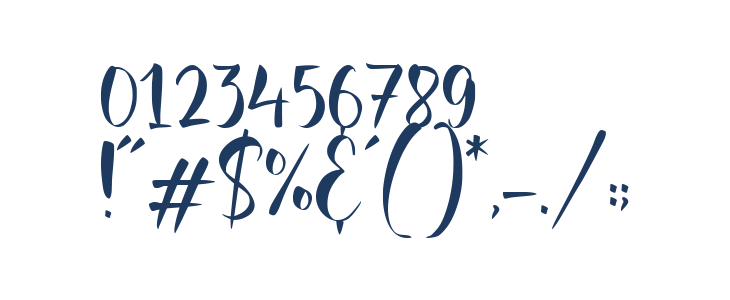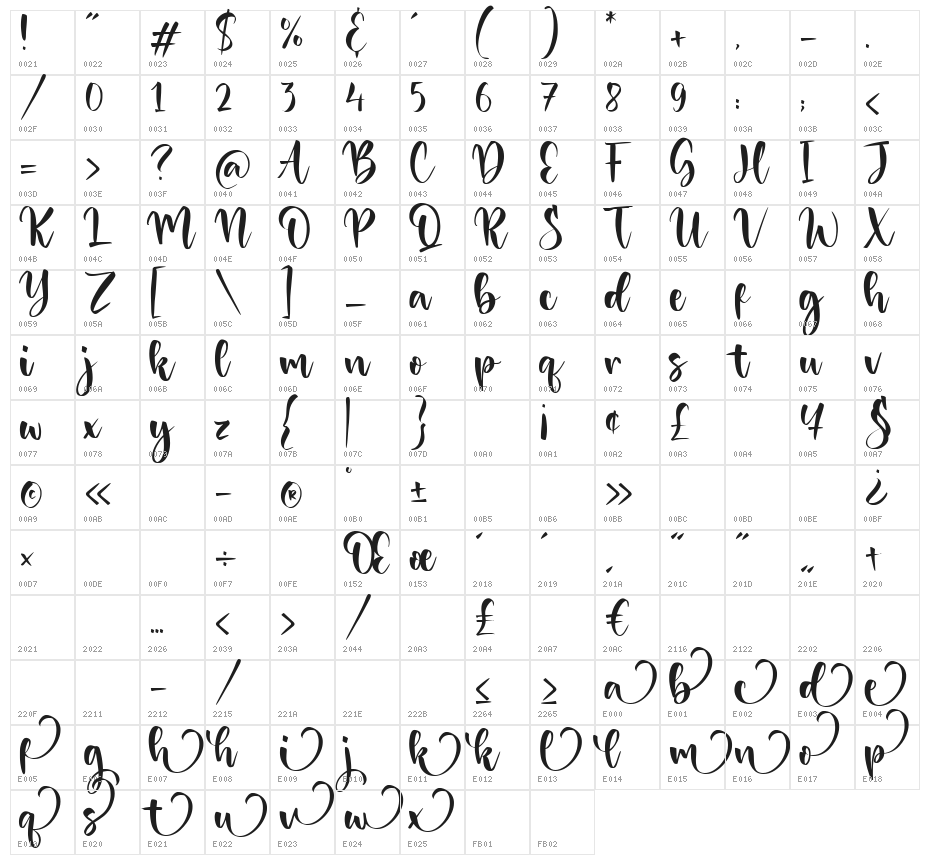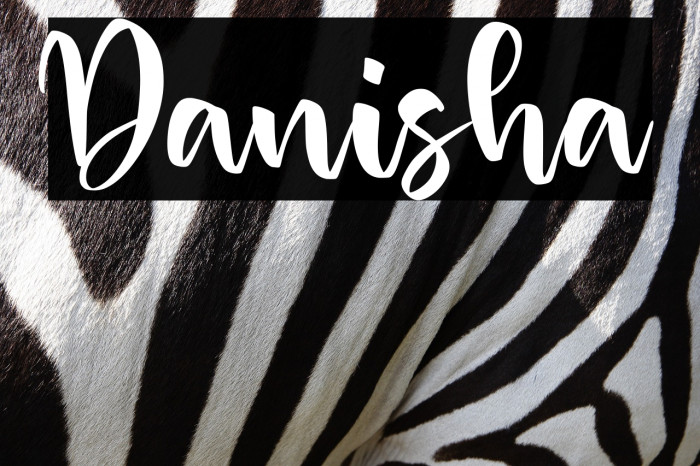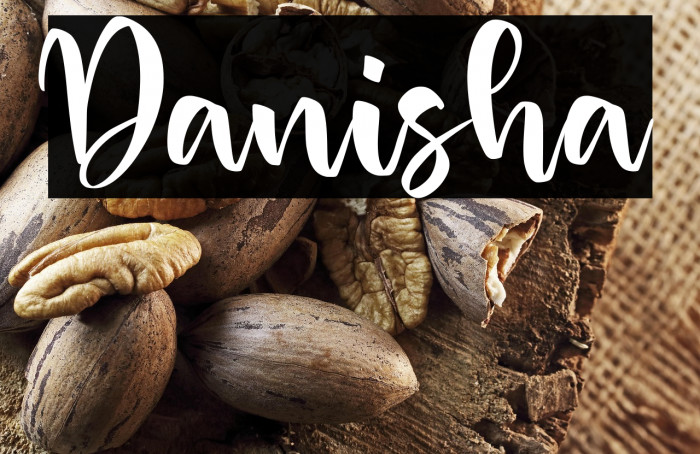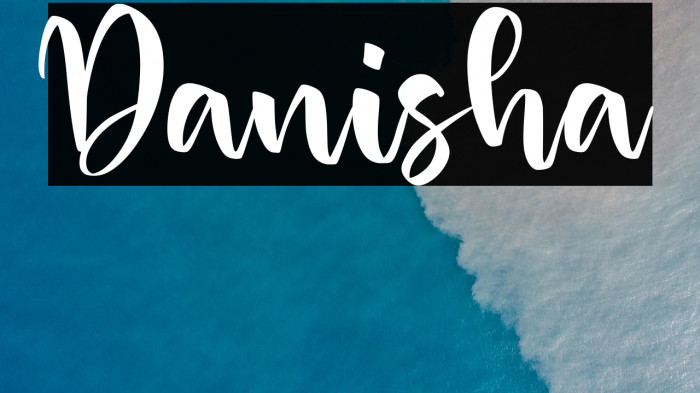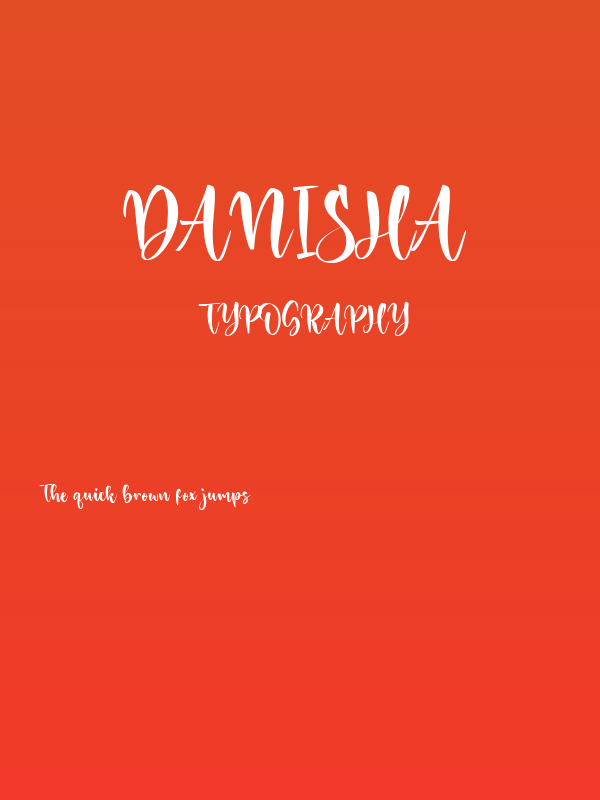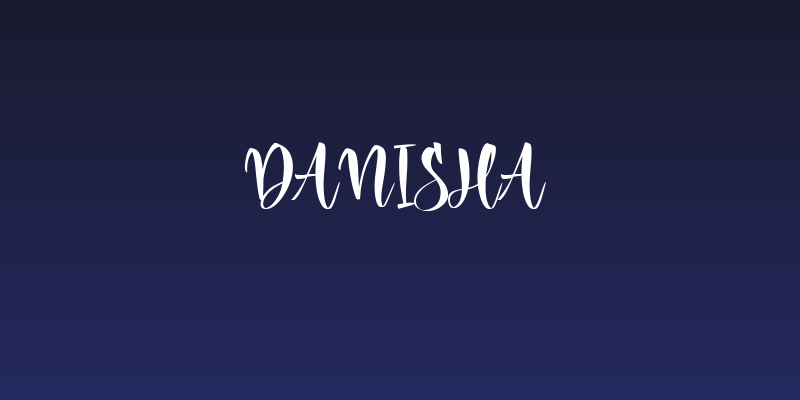
Danisha Font
Danisha Description
This font features a lively and expressive script style, characterized by its flowing, cursive letterforms. The strokes are bold and dynamic, with a playful yet elegant appearance. The uppercase letters are tall and slightly slanted, while the lowercase letters maintain a consistent rhythm with smooth connections. Numbers and special characters are crafted with the same energetic flair, making them stand out. The overall design exudes a sense of creativity and personal touch, suitable for projects that require a handwritten or artistic feel.